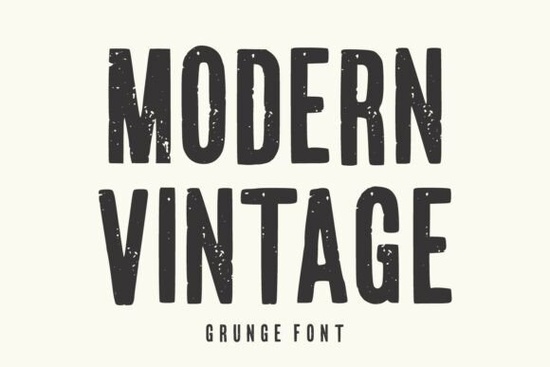
If you're looking for a font that brings a bold and expressive touch to your designs, the Modern Vintage Font is a fantastic choice. This typeface combines the timeless appeal of vintage typography with a rugged, distressed texture, making it perfect for projects that need a raw, handcrafted, and retro-inspired aesthetic.
Why Choose Modern Vintage Grunge Font?
The Modern Vintage Grunge Font is designed to create a strong visual impact. Its tall, condensed letterforms are enhanced by authentic worn details, giving it a unique and memorable look. Whether you're working on branding, logos, posters, or social media graphics, this font adds a touch of character and authenticity to your work.
Perfect for a Wide Range of Creative Projects
This versatile font works beautifully across various creative applications. Here are some of the ways you can use it:
- Branding and Logos: Create a distinctive and memorable brand identity with its bold and expressive style.
- Posters and Advertisements: Grab attention with eye-catching headlines and text that stand out.
- T-Shirt Designs and Apparel: Add a retro, handcrafted feel to your clothing and accessories.
- Packaging and Signage: Give your product packaging and signage a rustic, vintage charm.
- Social Media Graphics: Enhance your posts with a unique, grunge-inspired look that resonates with your audience.
Maintaining Readability and Character
One of the standout features of the Modern Vintage Grunge Font is its ability to maintain excellent readability while still adding character. The distressed texture doesn't compromise legibility, making it suitable for both large headlines and smaller, more detailed text. This balance makes it a reliable choice for a variety of design needs.
Complementing Other Fonts
While the Modern Vintage Grunge Font can stand alone, it also pairs well with other fonts to create a rich, layered design. For example, you might combine it with a clean, modern sans-serif like The Pickles House Font for a balanced look. Or, for a more elegant touch, consider pairing it with a script font such as Beautiful Smile Font.
Getting Started with Modern Vintage Grunge Font
Using the Modern Vintage Grunge Font in your projects is straightforward. Here are a few tips to get you started:
- Choose Your Project: Decide on the type of project you want to create, whether it's a logo, poster, or social media graphic.
- Experiment with Textures: Play around with the distressed texture to see how it fits with your overall design. You can adjust the opacity and layering to achieve the desired effect.
- Combine with Other Elements: Mix and match with other design elements, such as images, shapes, and colors, to create a cohesive and visually appealing composition.
- Test Readability: Ensure that the text remains readable, especially if you're using it for smaller sizes or more detailed text.
Inspiration from Other Designers
Seeing how other designers have used the Modern Vintage Grunge Font can provide inspiration for your own projects. Check out portfolios and design galleries to see a range of creative applications. For instance, you might find that Stacked Chunky Font and Preppycrush Font are also popular choices for adding a complementary, yet distinct, style to your designs.
Final Thoughts
The Modern Vintage Grunge Font is a versatile and expressive typeface that can add a unique, handcrafted touch to your projects. Whether you're a designer, crafter, print-on-demand seller, small business owner, or creative hobbyist, this font offers a blend of character and readability that can enhance a wide range of creative applications. Experiment with different textures, combinations, and design elements to make the most of this distinctive font.